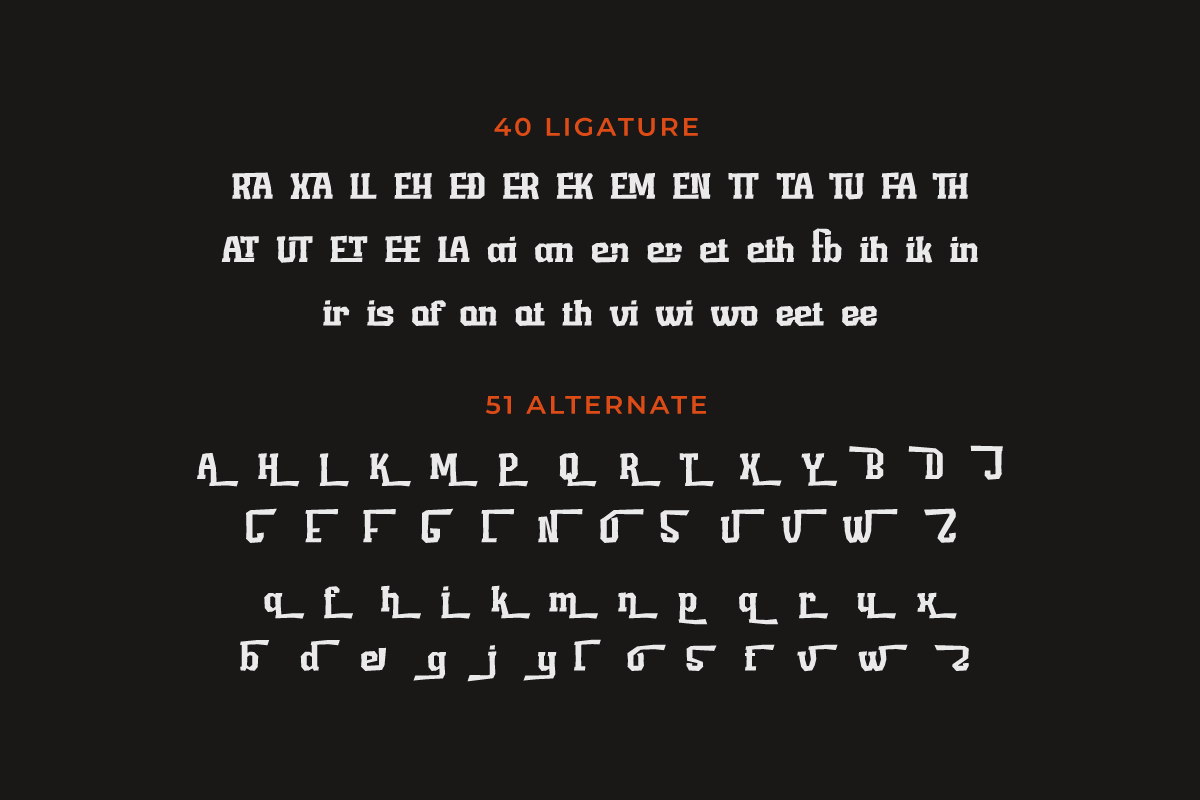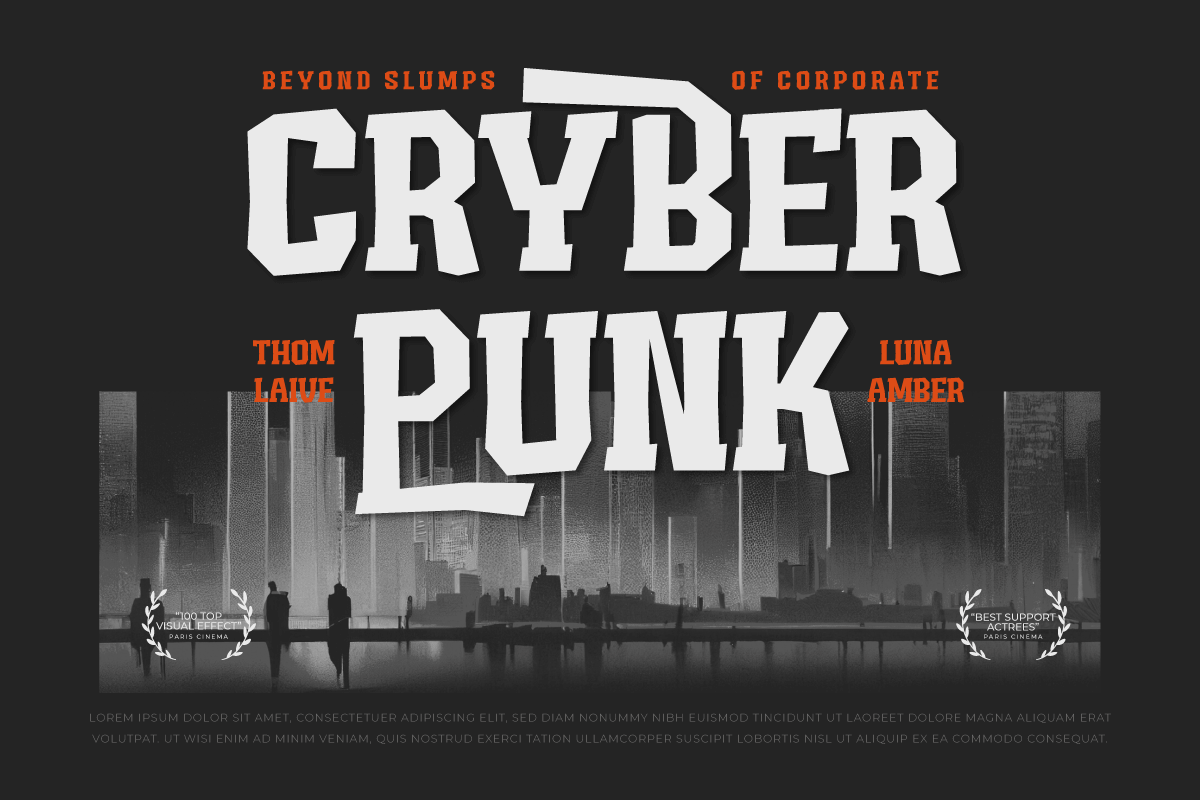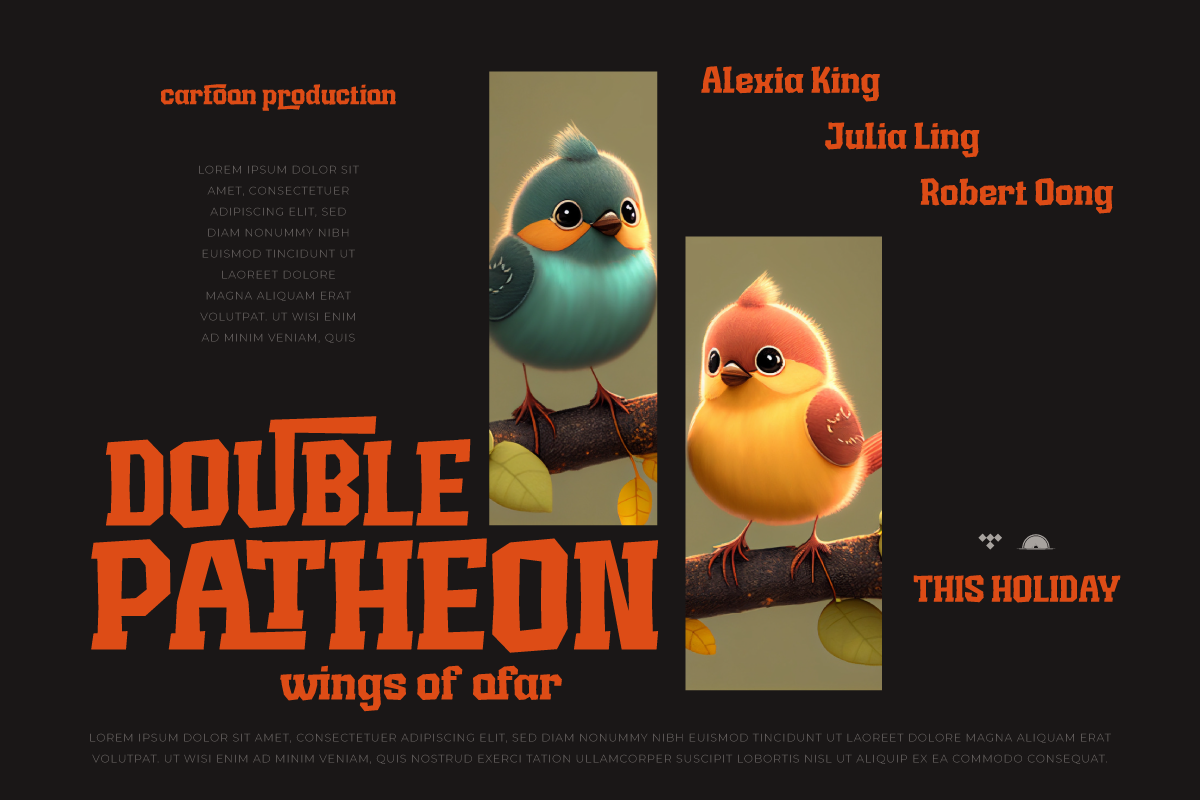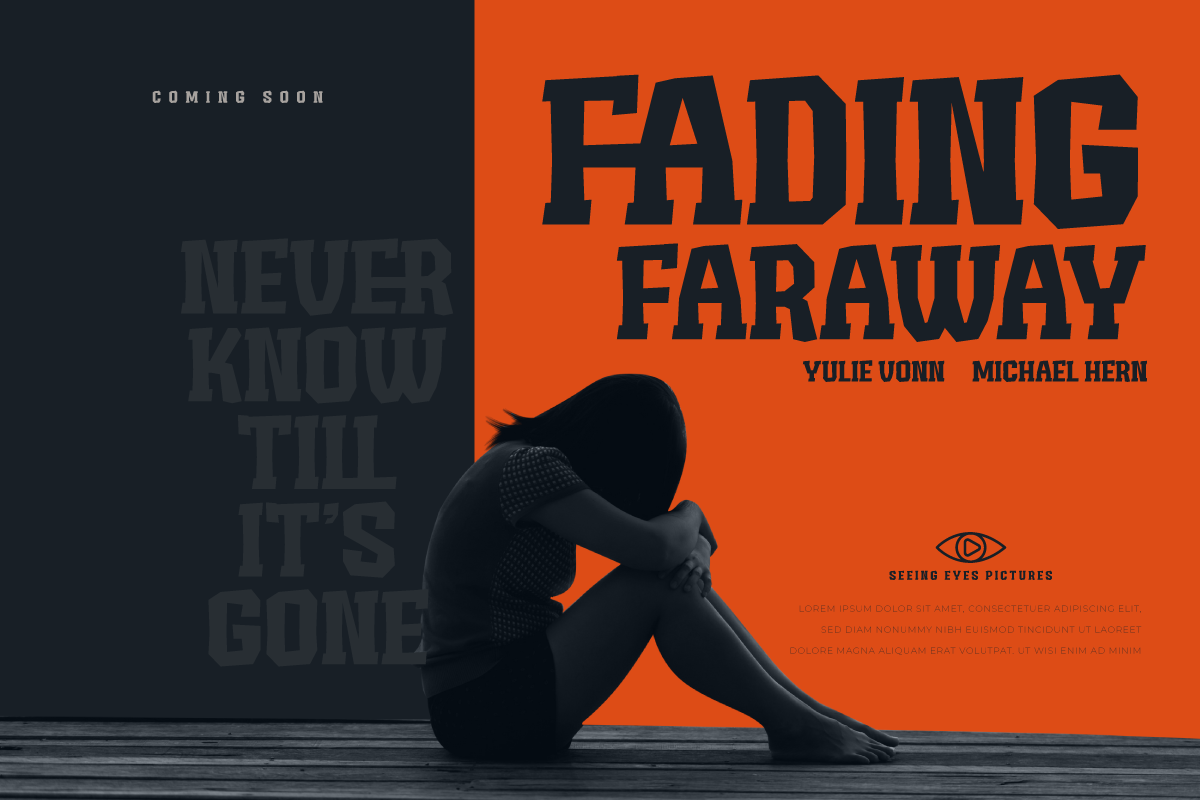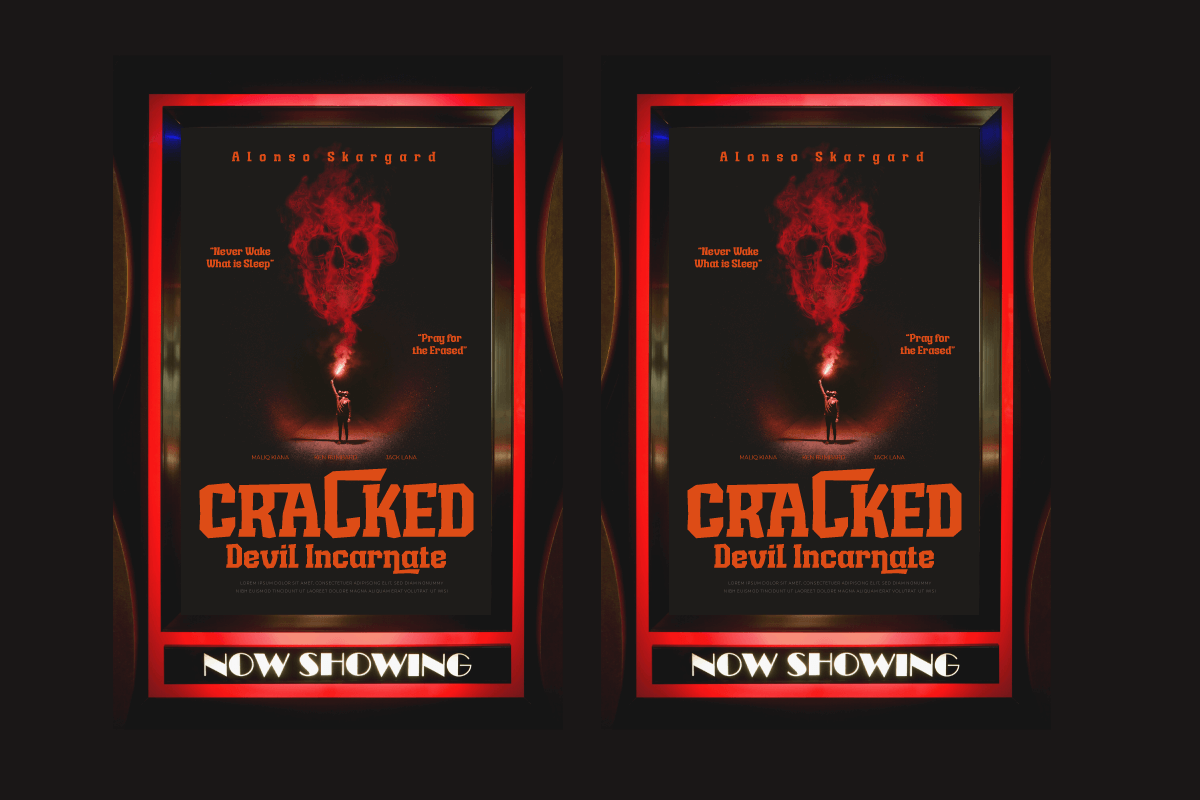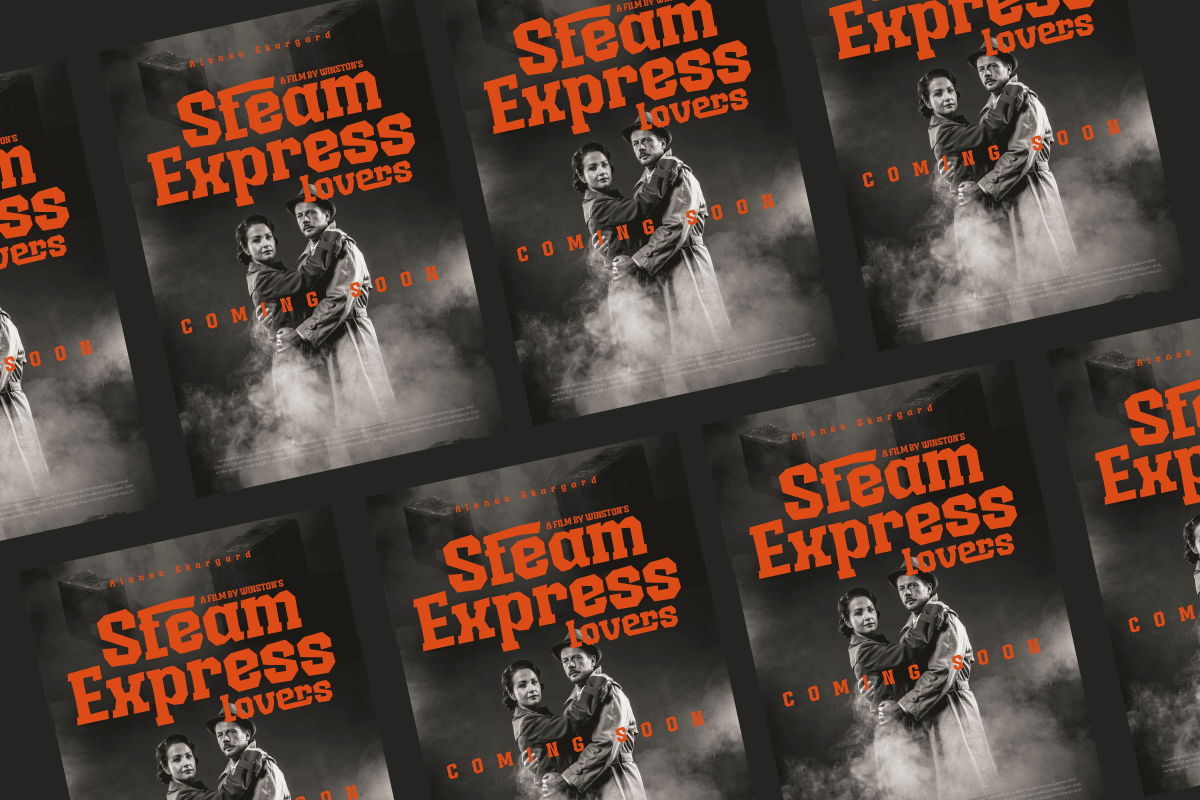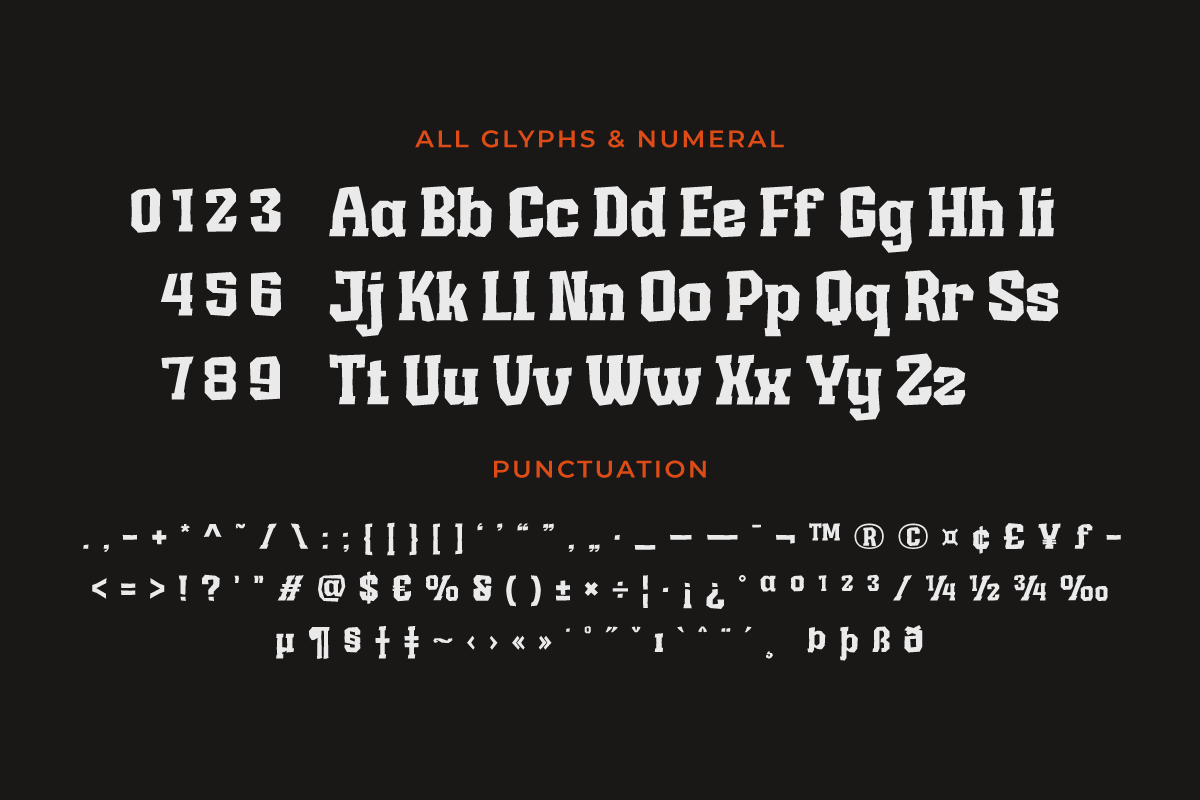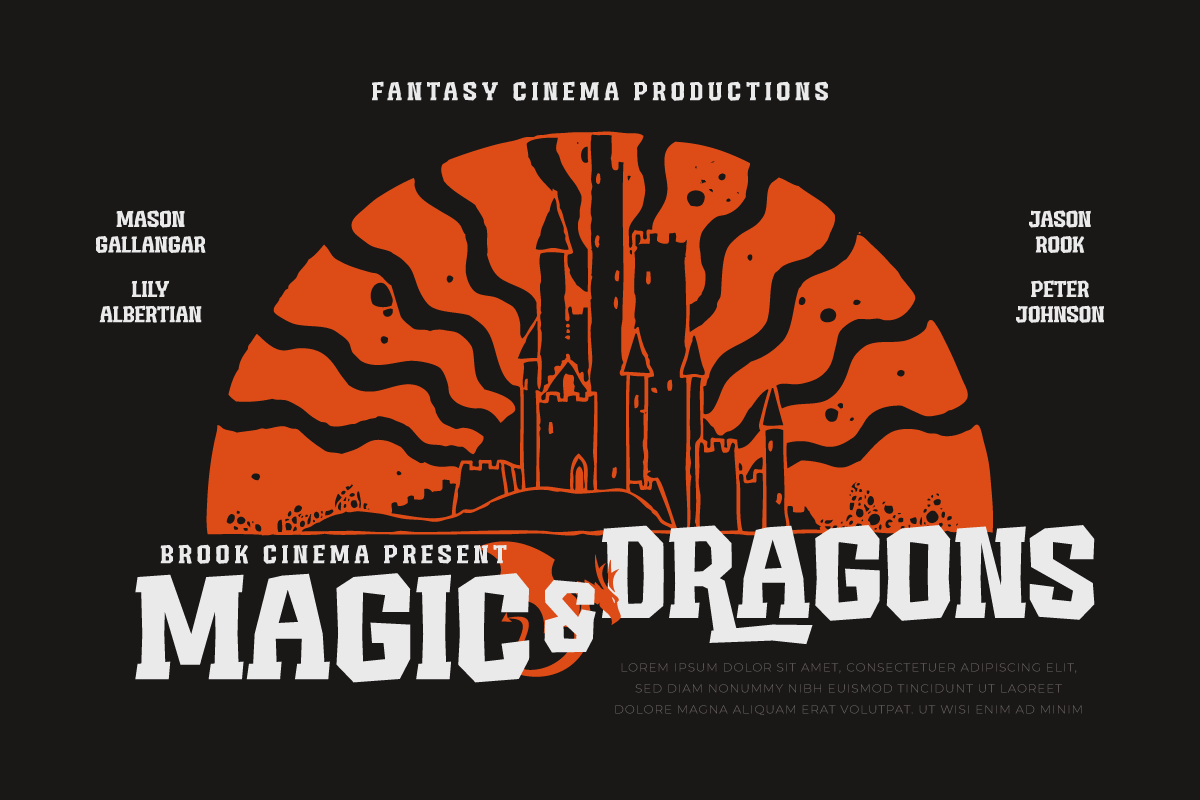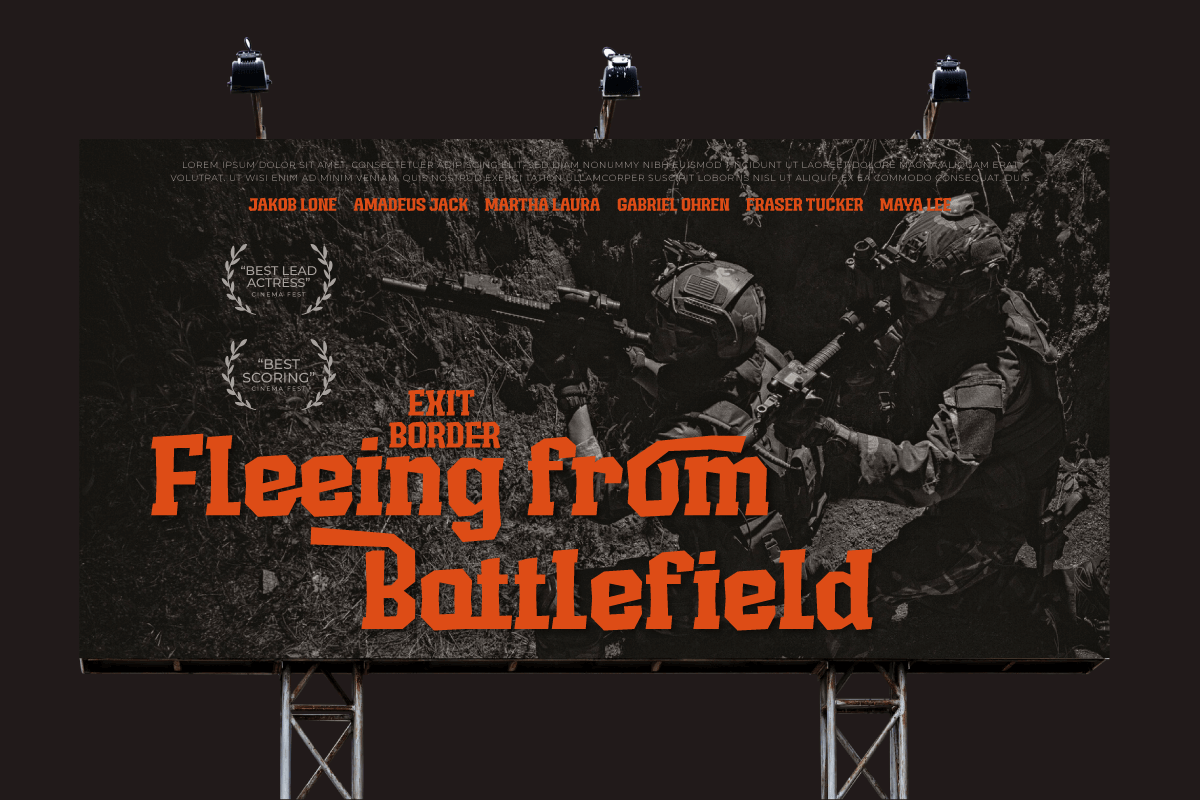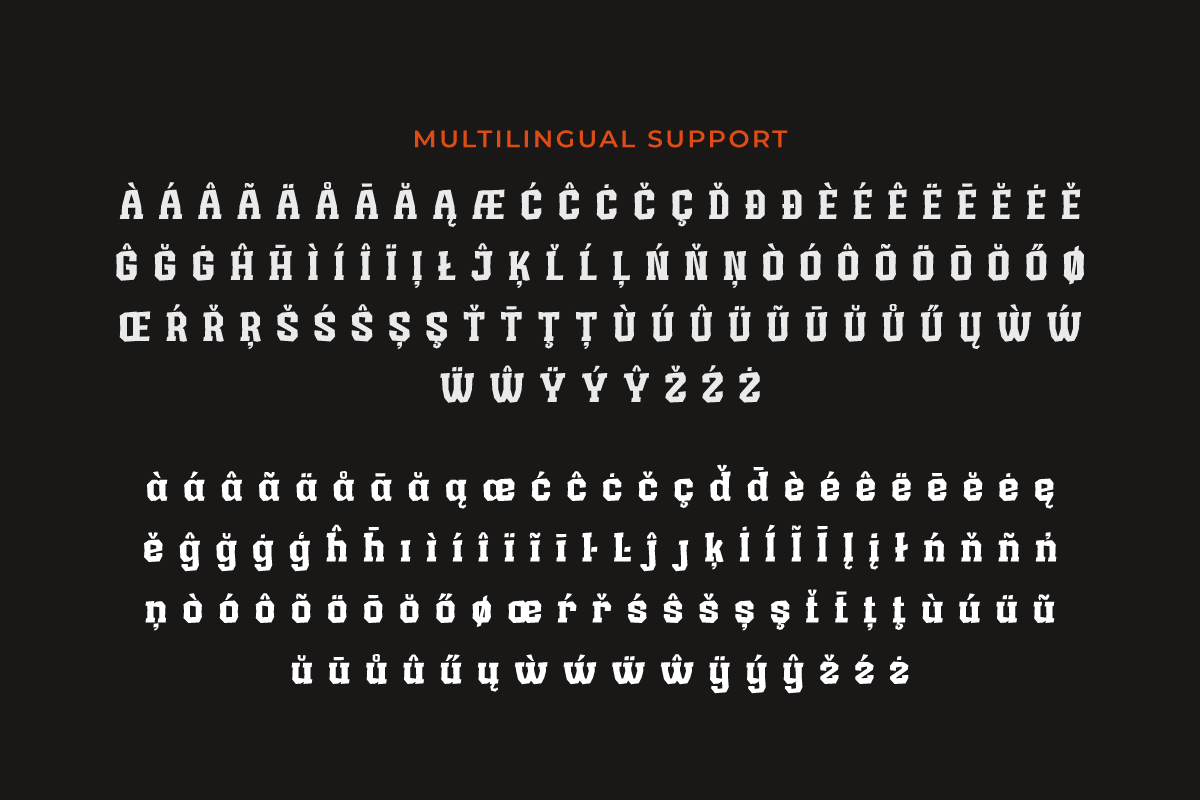
MEORU GEND | Display Hero Font
Meoru Gend is a display font that presents superhero strength, courage, and modernity in every action. With a strong, bold, and futuristic style, this font is the perfect solution for creating action-packed and epic gaming experiences. In every letter, Meoru Gend brings life to your display with electrifying energy. From bold, sharply contoured typefaces to seamlessly blended modern elements, this font will bring immense visual power to your game projects.
Meoru Gend offers not only impressive styles but also creative features that enrich your work. With the available ligatures and alternates, you can create unique and interesting variations of your style. Also, with multilingual support, this font can be used in multiple languages to reach a global audience.
If you’re looking for a strong, bold, modern, and action-packed font for your game projects, Meoru Gend is the right choice. With benefits that include an impressive look, futuristic style, and creative features such as ligatures and alternates, this font will quickly catch the attention of your potential customers and bring you an extraordinary gaming experience in no time.
- Alternate, Ligature